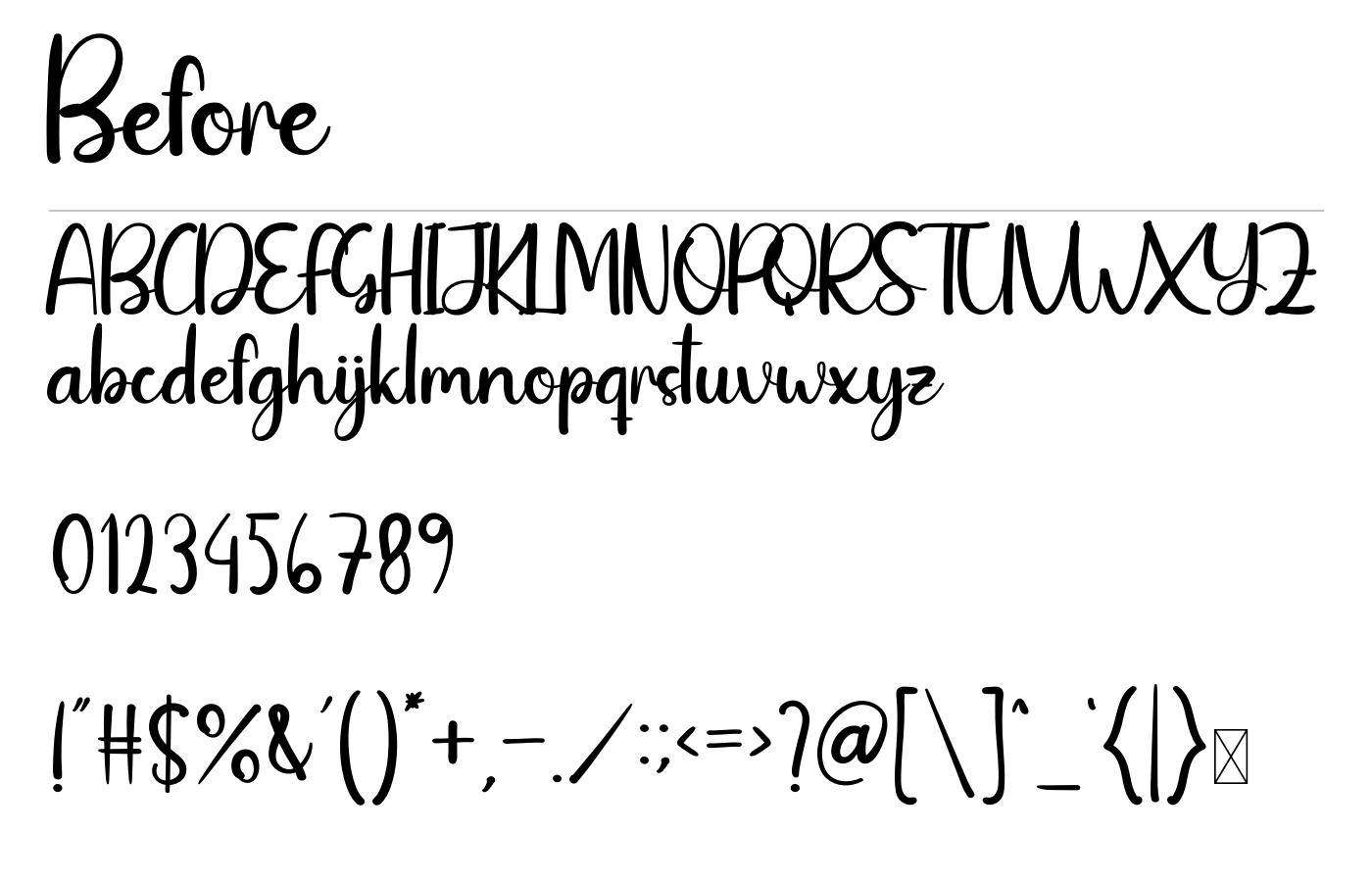
Before Font is a playful, casual script font with a handwritten feel, featuring tall, narrow letterforms and lively, irregular strokes. Its friendly and approachable style makes it ideal for personal branding, creative projects, and informal headlines that seek a warm, inviting touch. This font works well where personality and charm are needed without sacrificing legibility.
Before Font
About Before Font